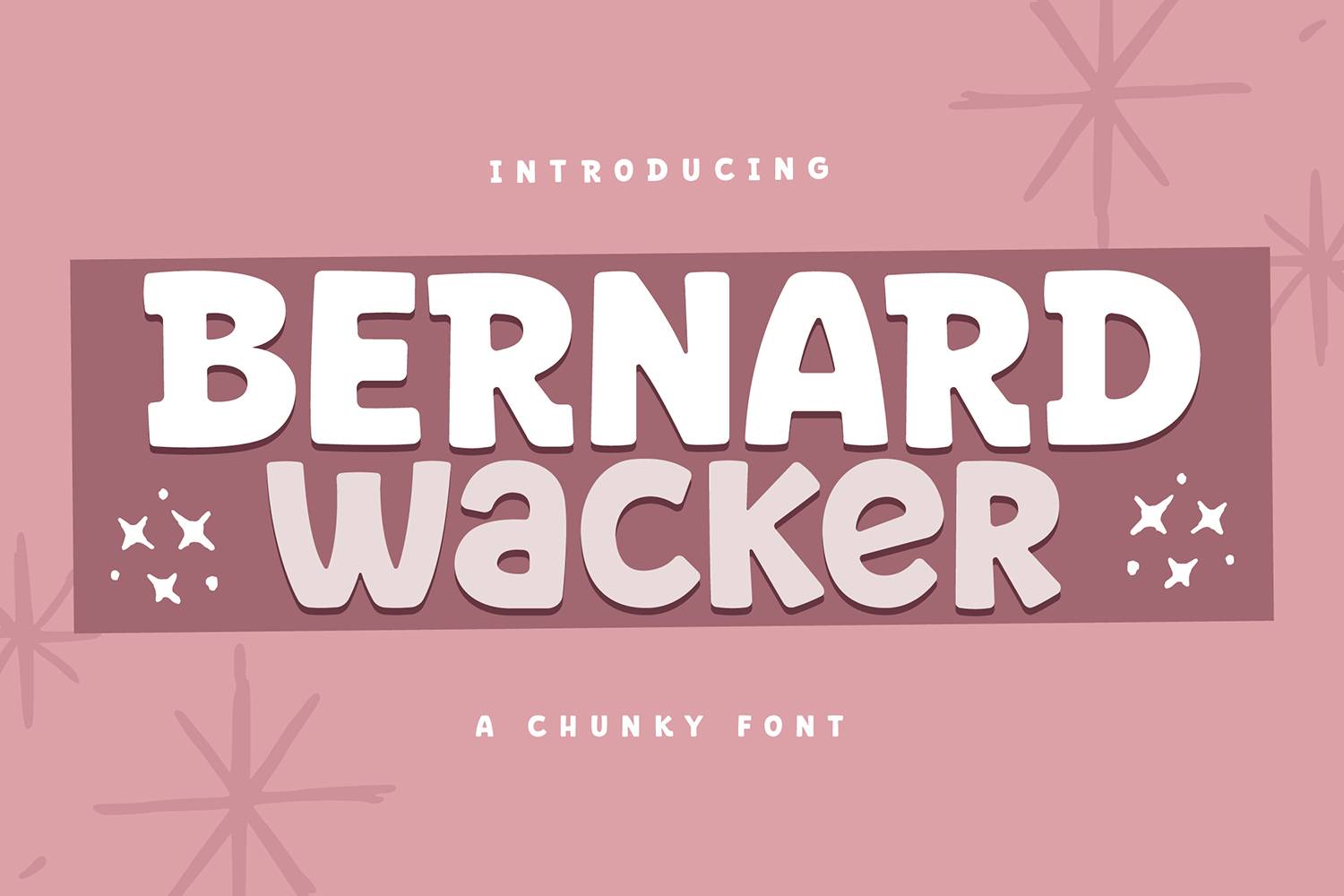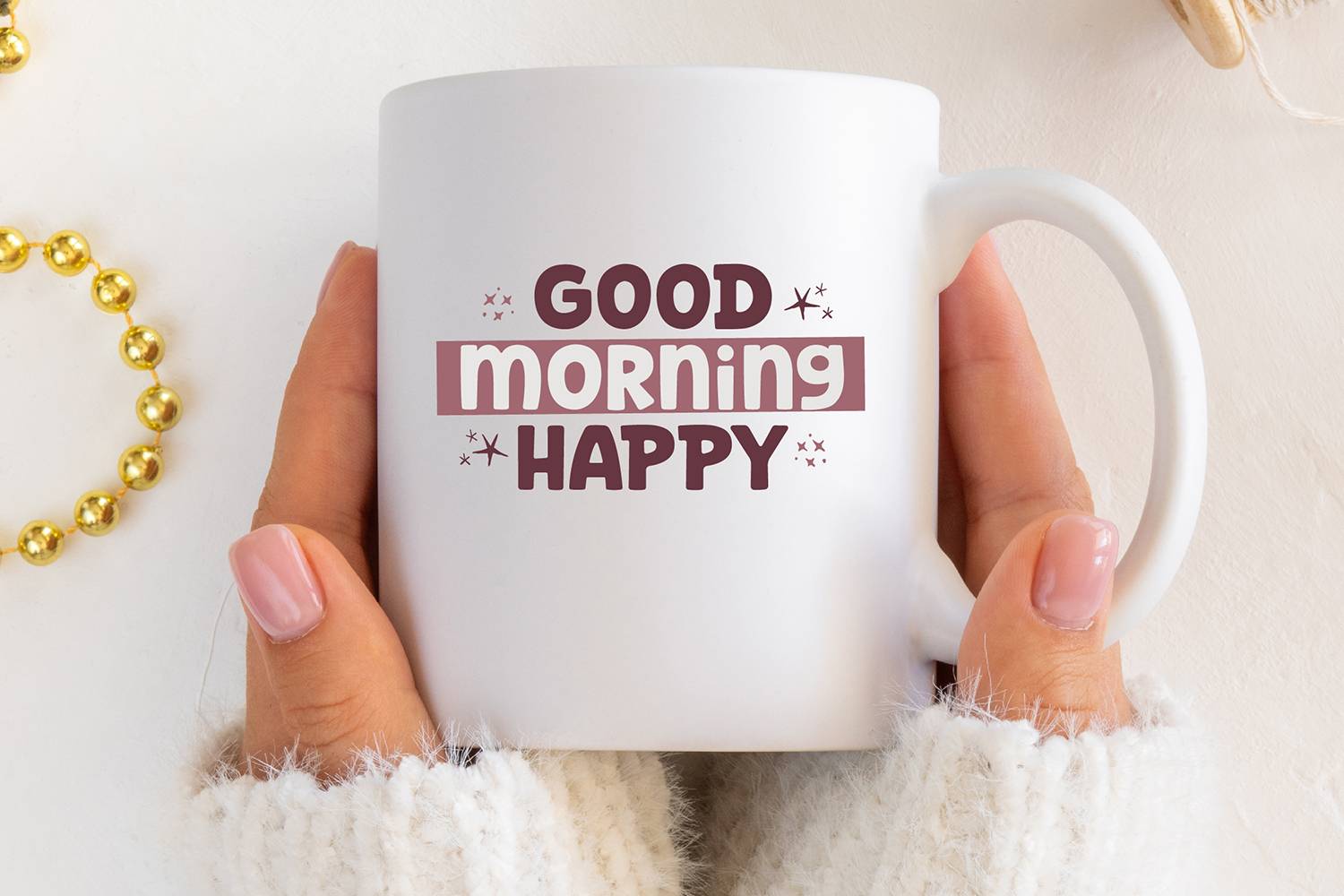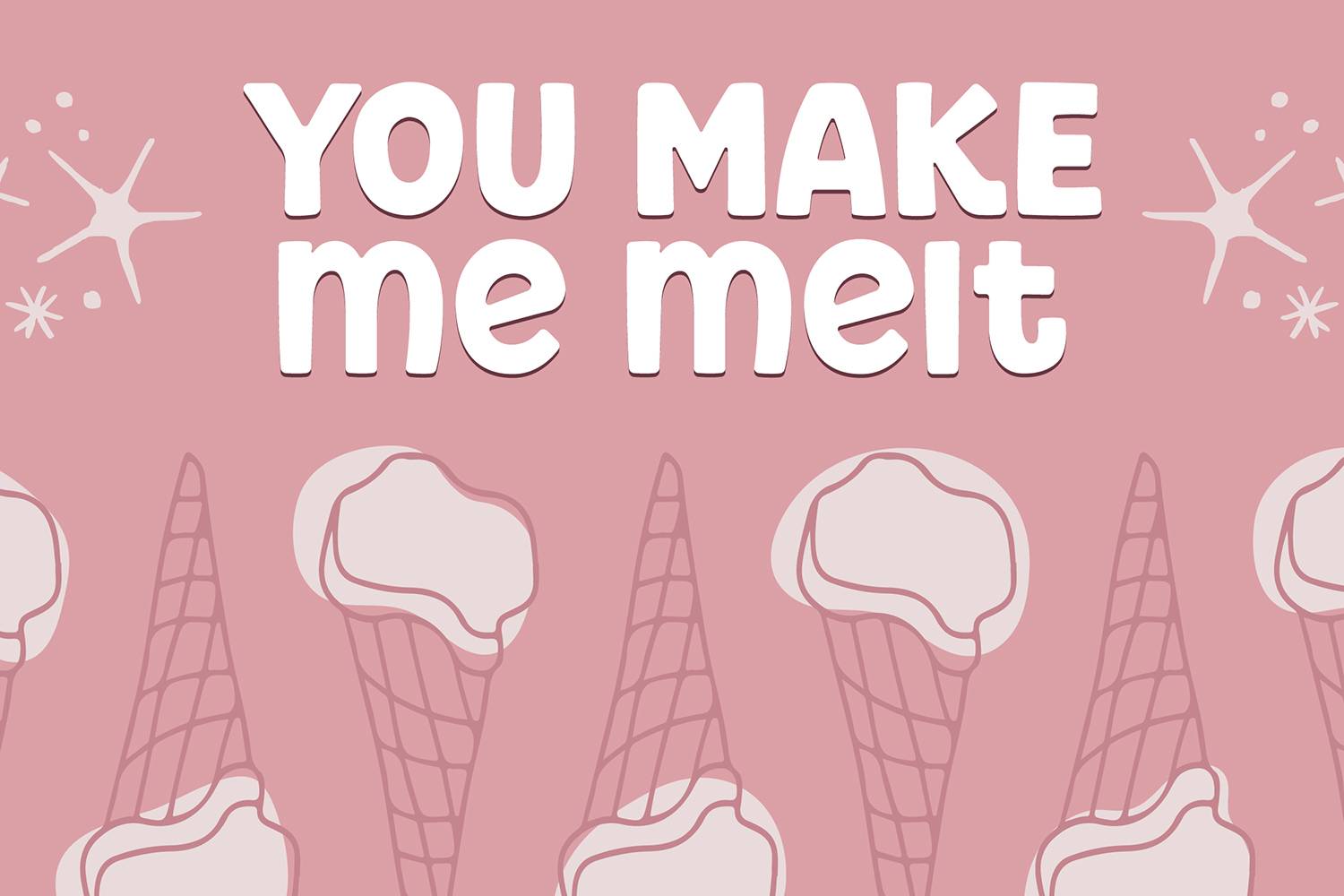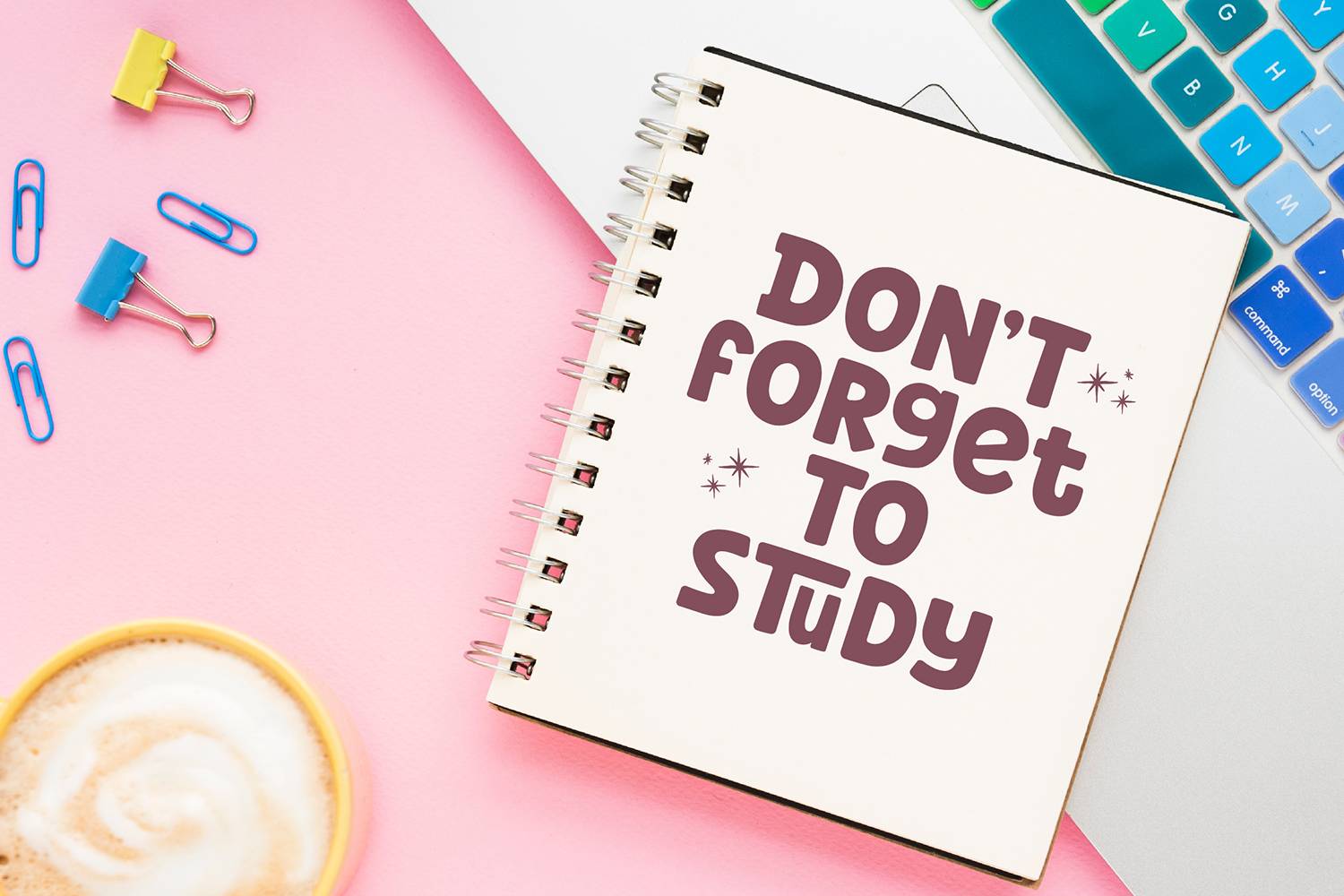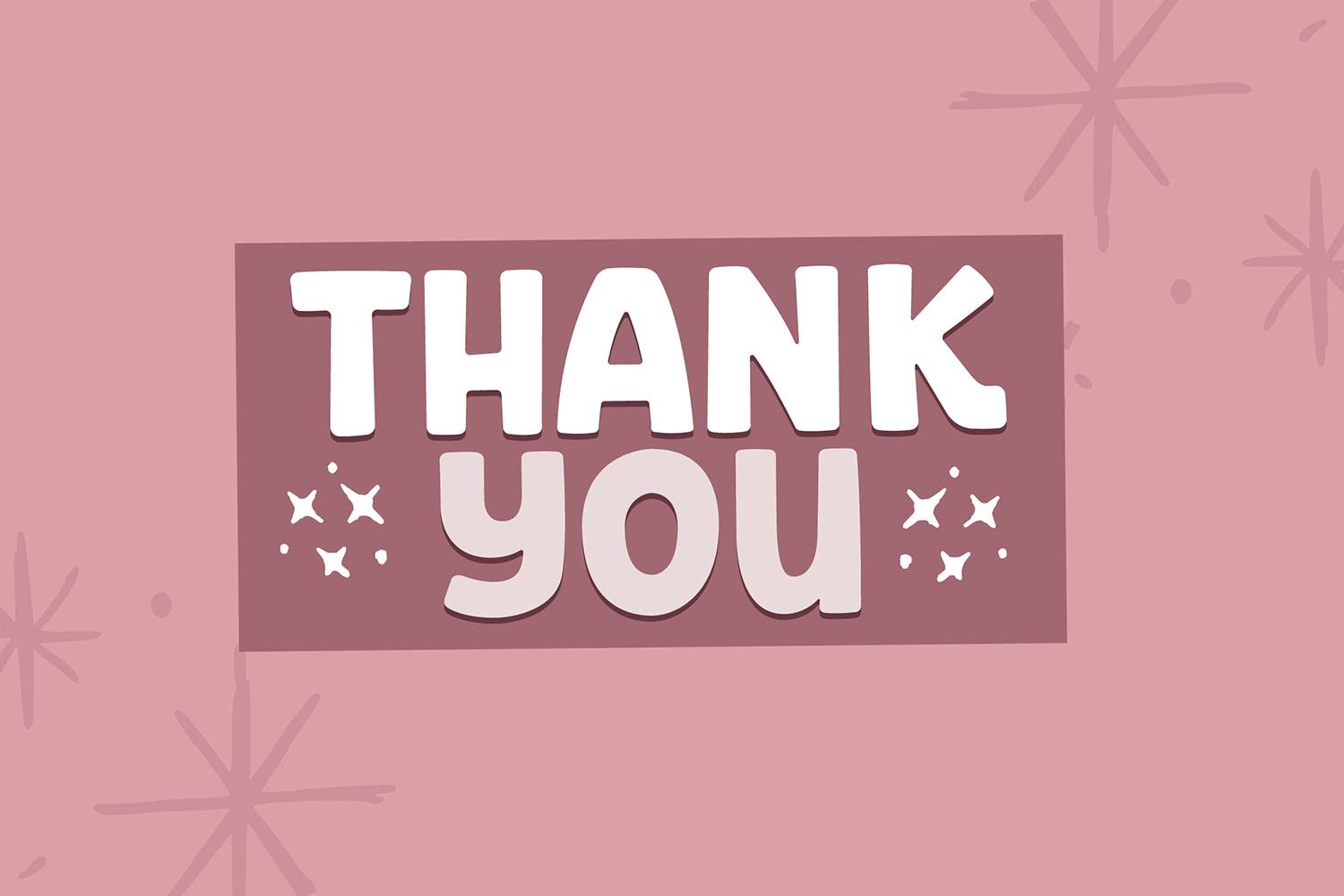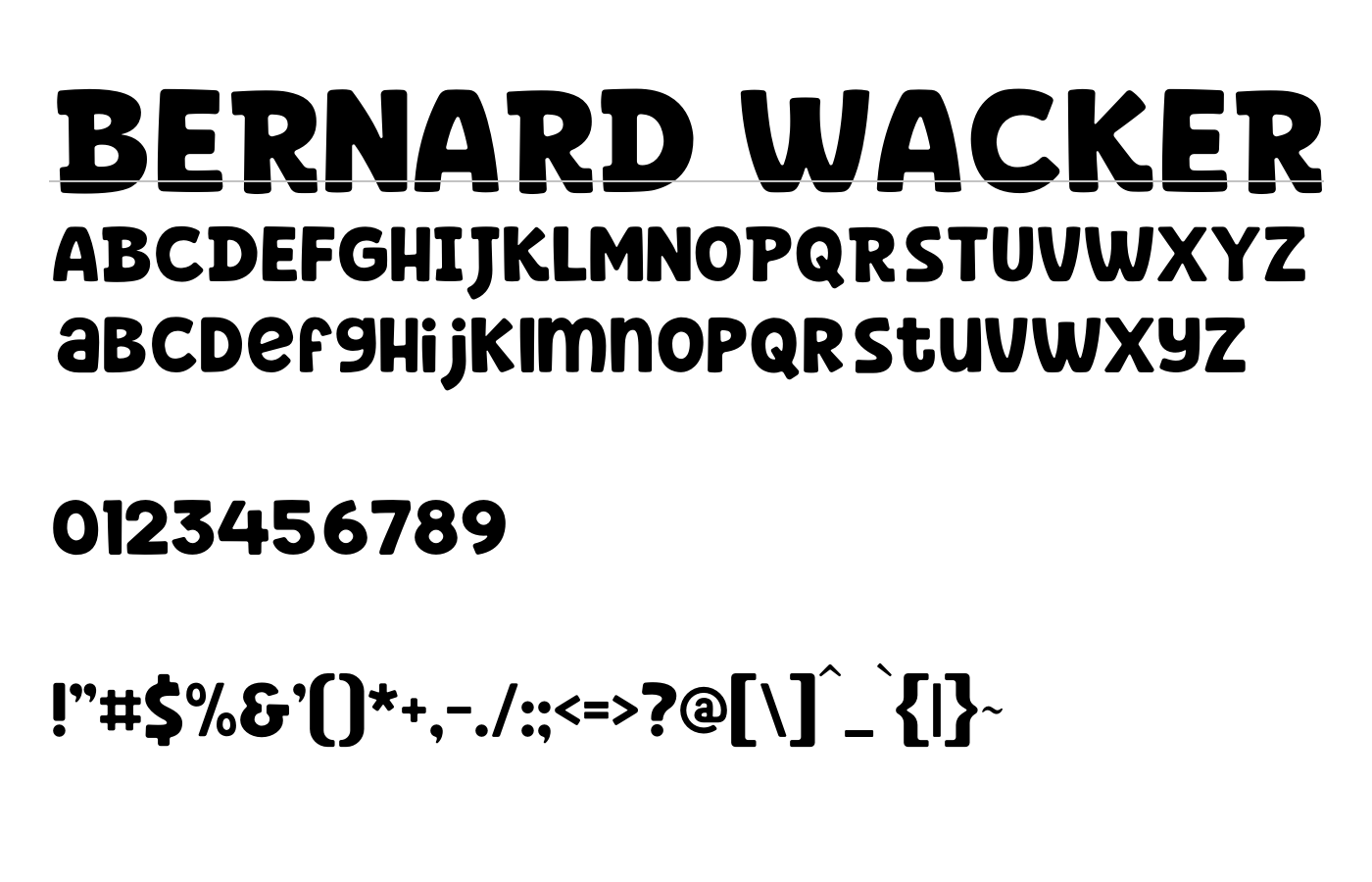
Bernard Wacker is a playful and bold sans serif font with a friendly, rounded character that gives it a casual and approachable feel. Its irregular shapes and varying stroke widths add personality, making it ideal for informal branding, children's materials, or creative headlines. This font works well where a lively, fun atmosphere is desired without sacrificing legibility.
Bernard Wacker Font